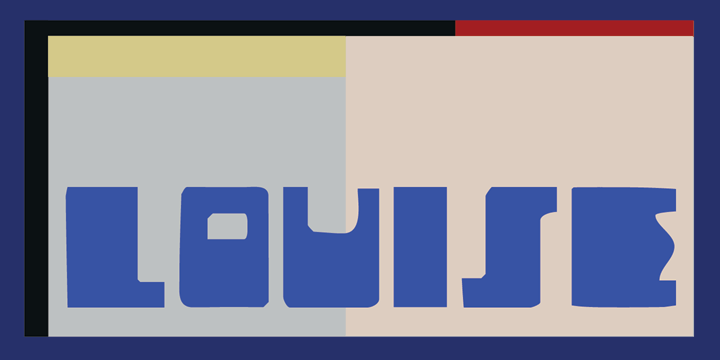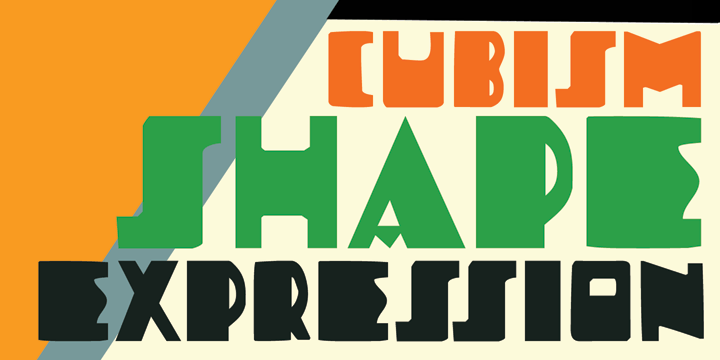
Louise
Font Family by Hanoded
Louise font was based on the art of Louise Marie (lou) Loeber, a Dutch painter. She was born in Amsterdam in 1894 and flirted with several styles like De Stijl, Cubism and Bauhaus. Her artworks are characterized by a sober use of geometric shapes; lines, rectangles and triangles.
Louise font consists of Caps, but the lower and upper case glyphs are quite different. Louise comes with extensive language support.